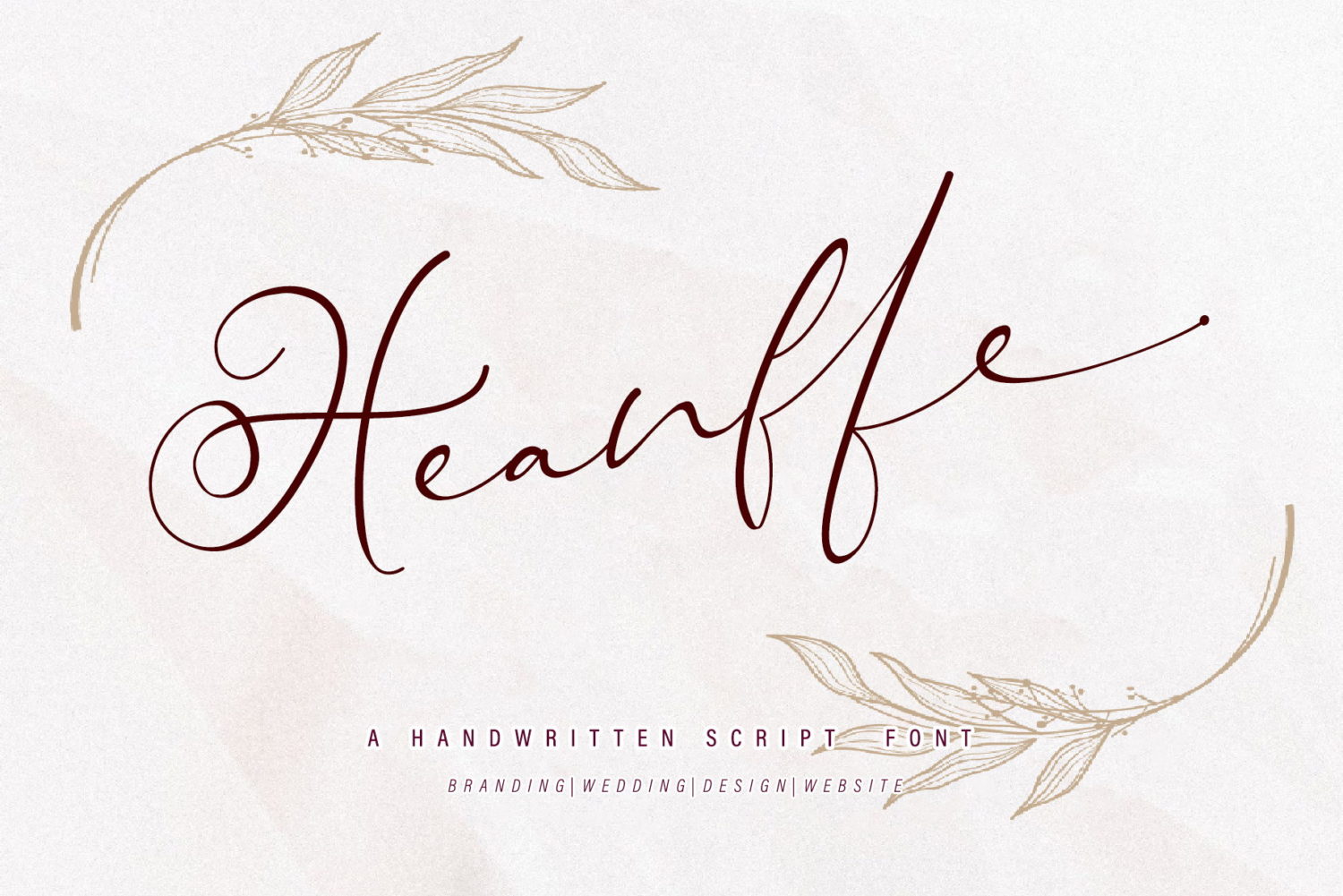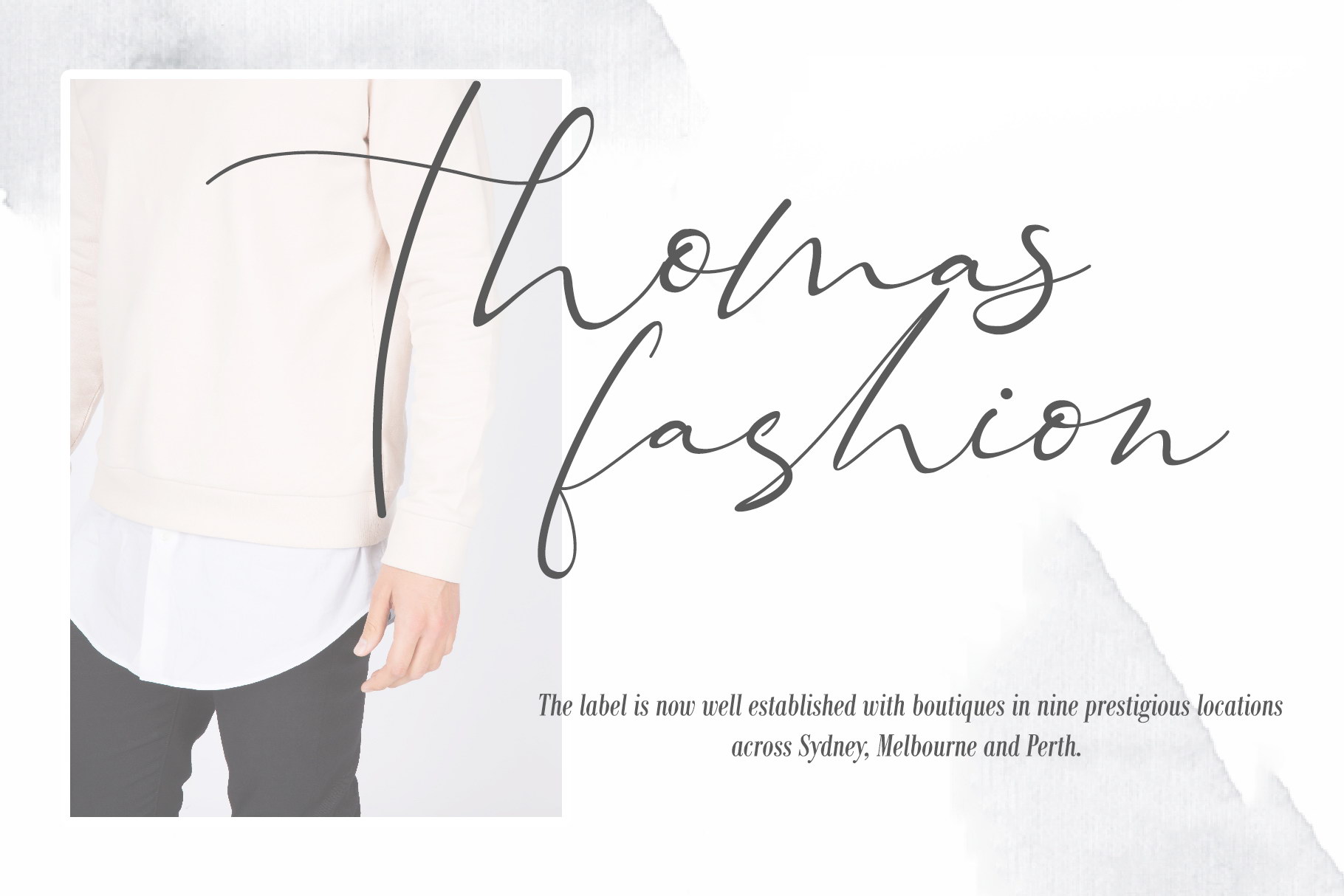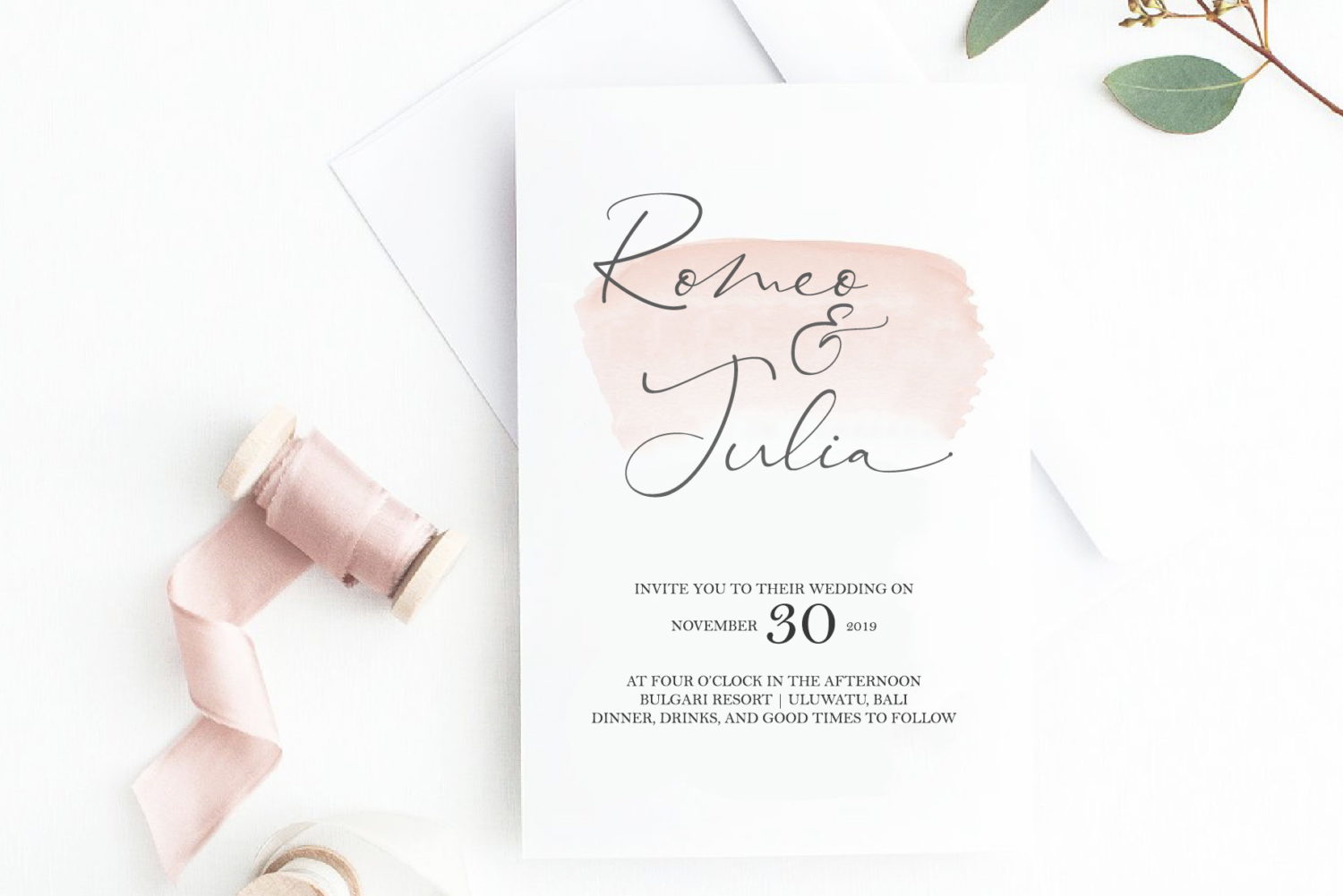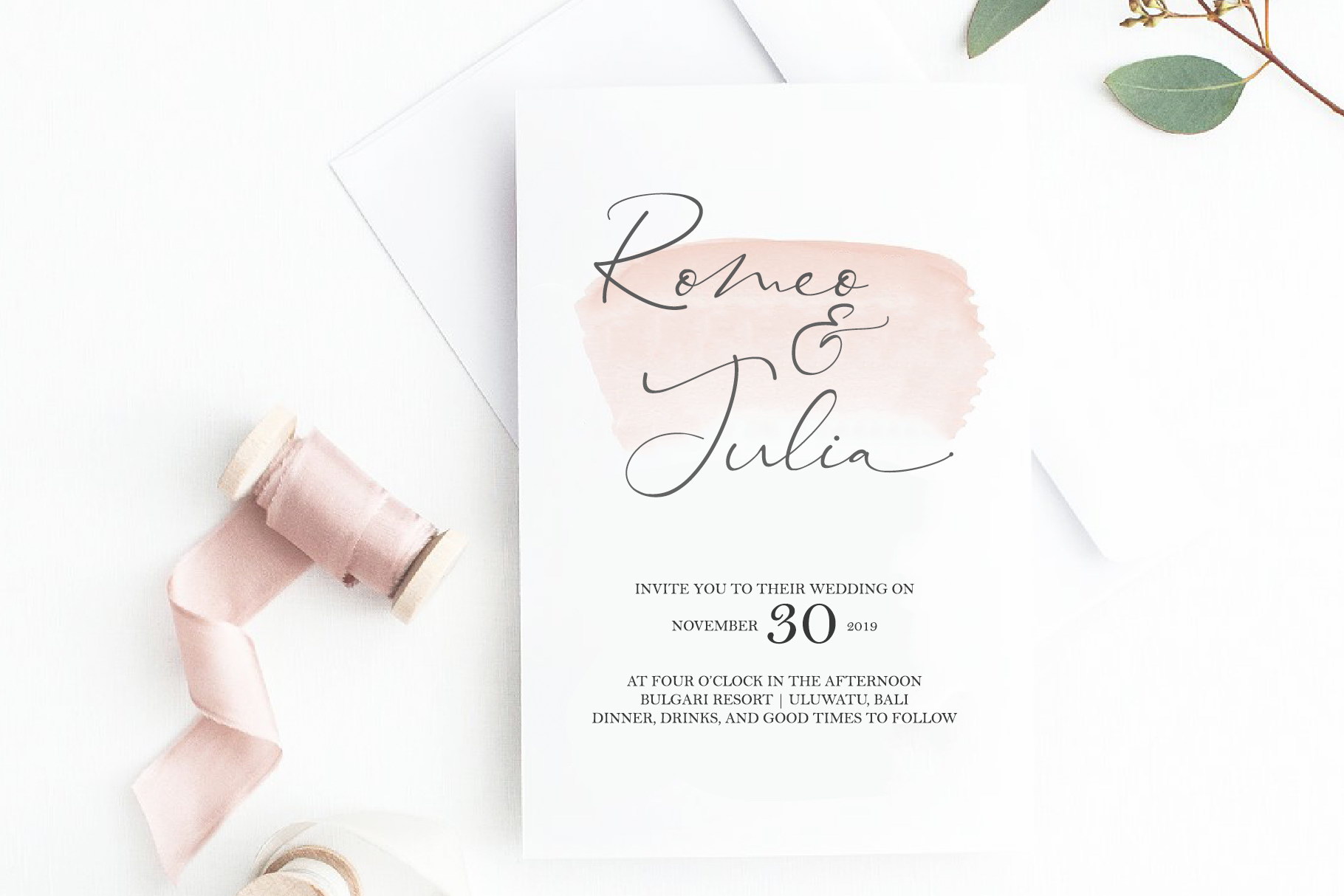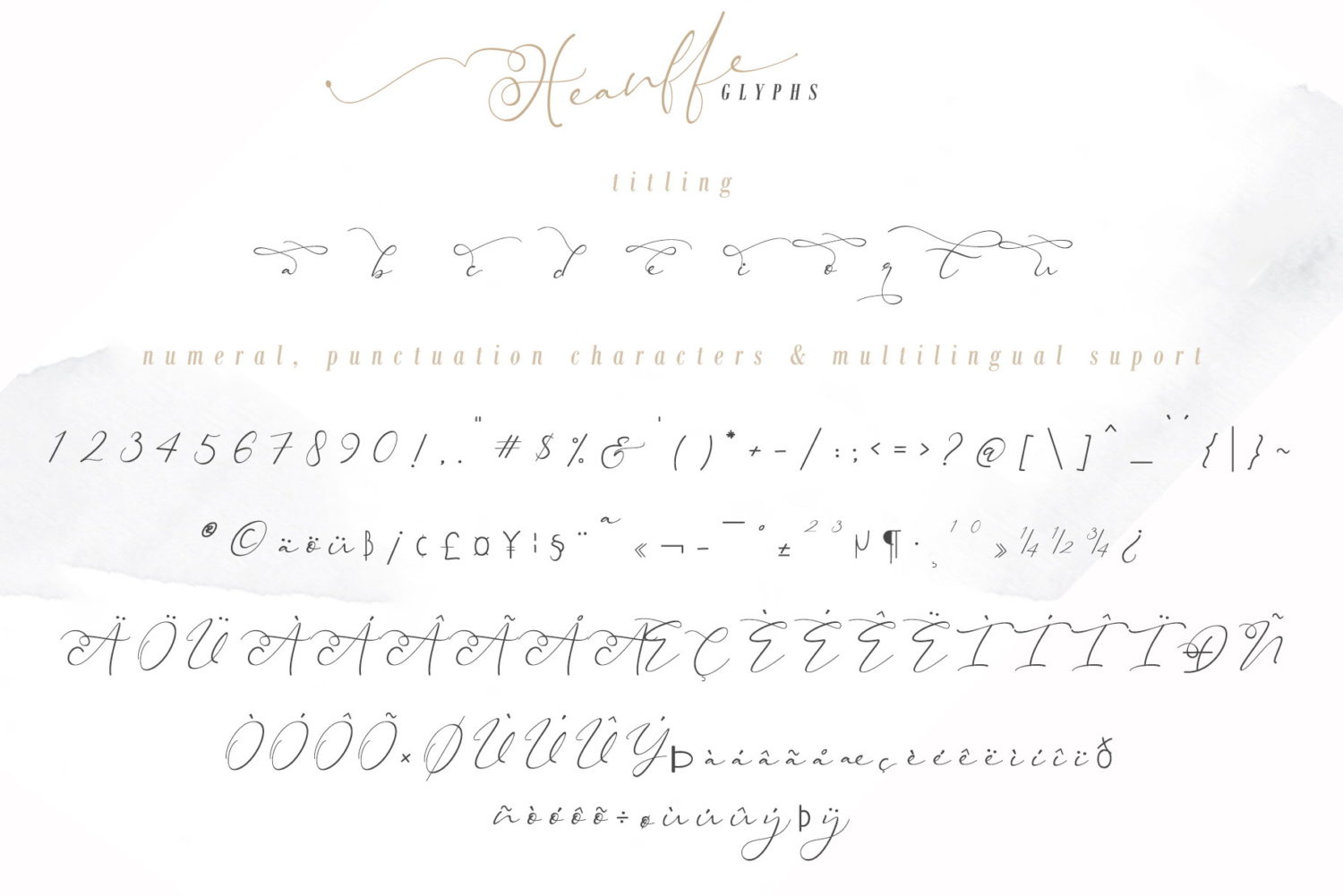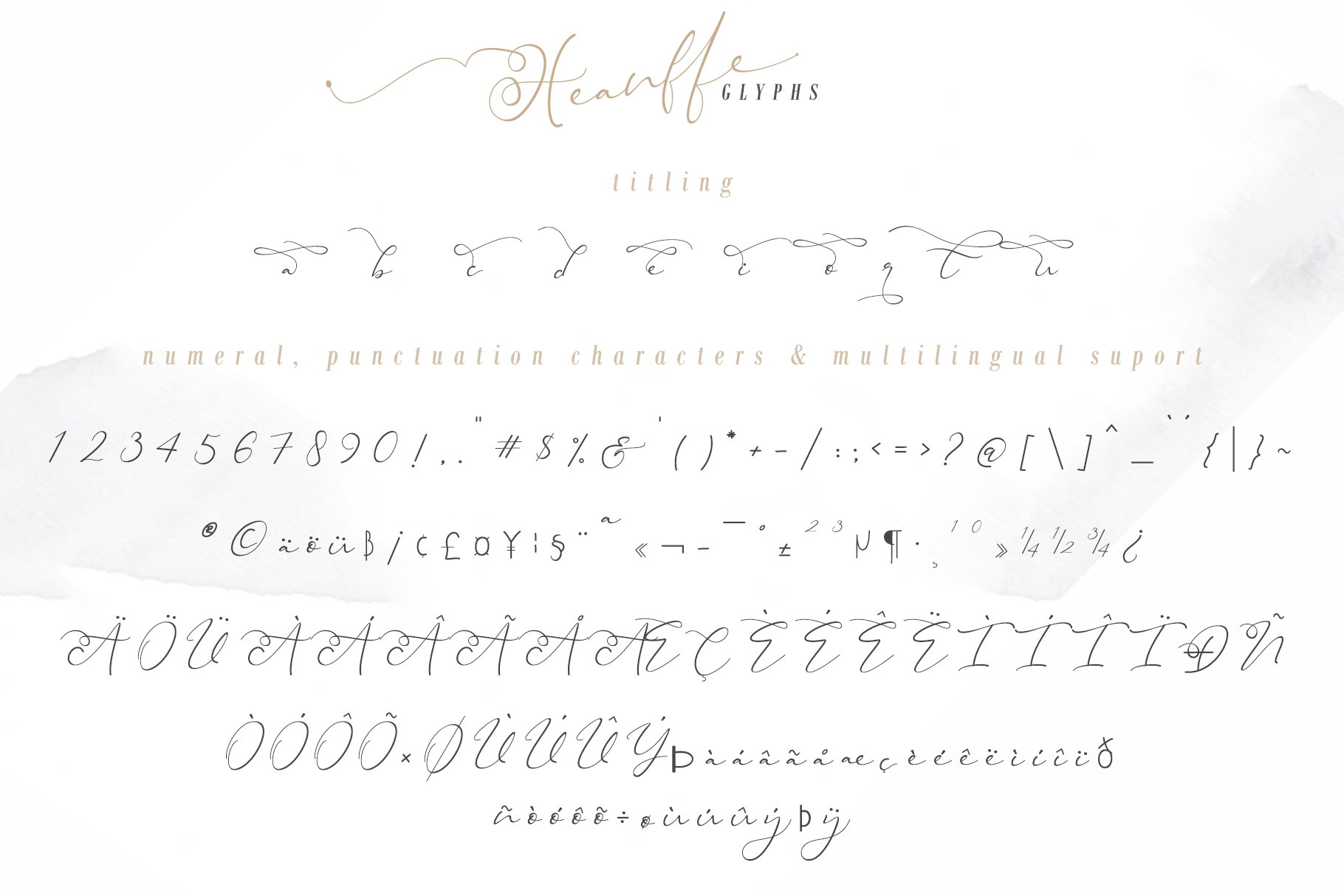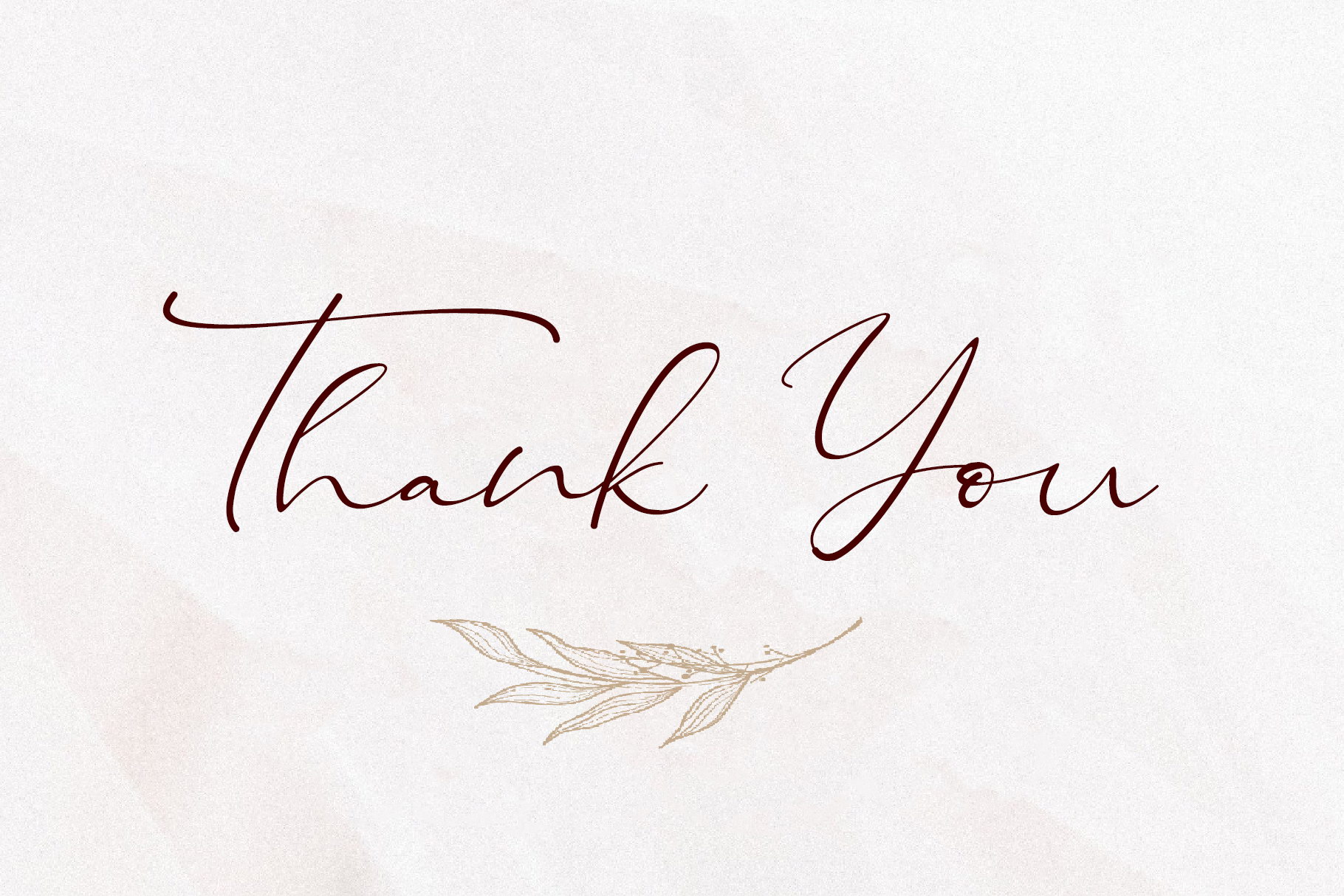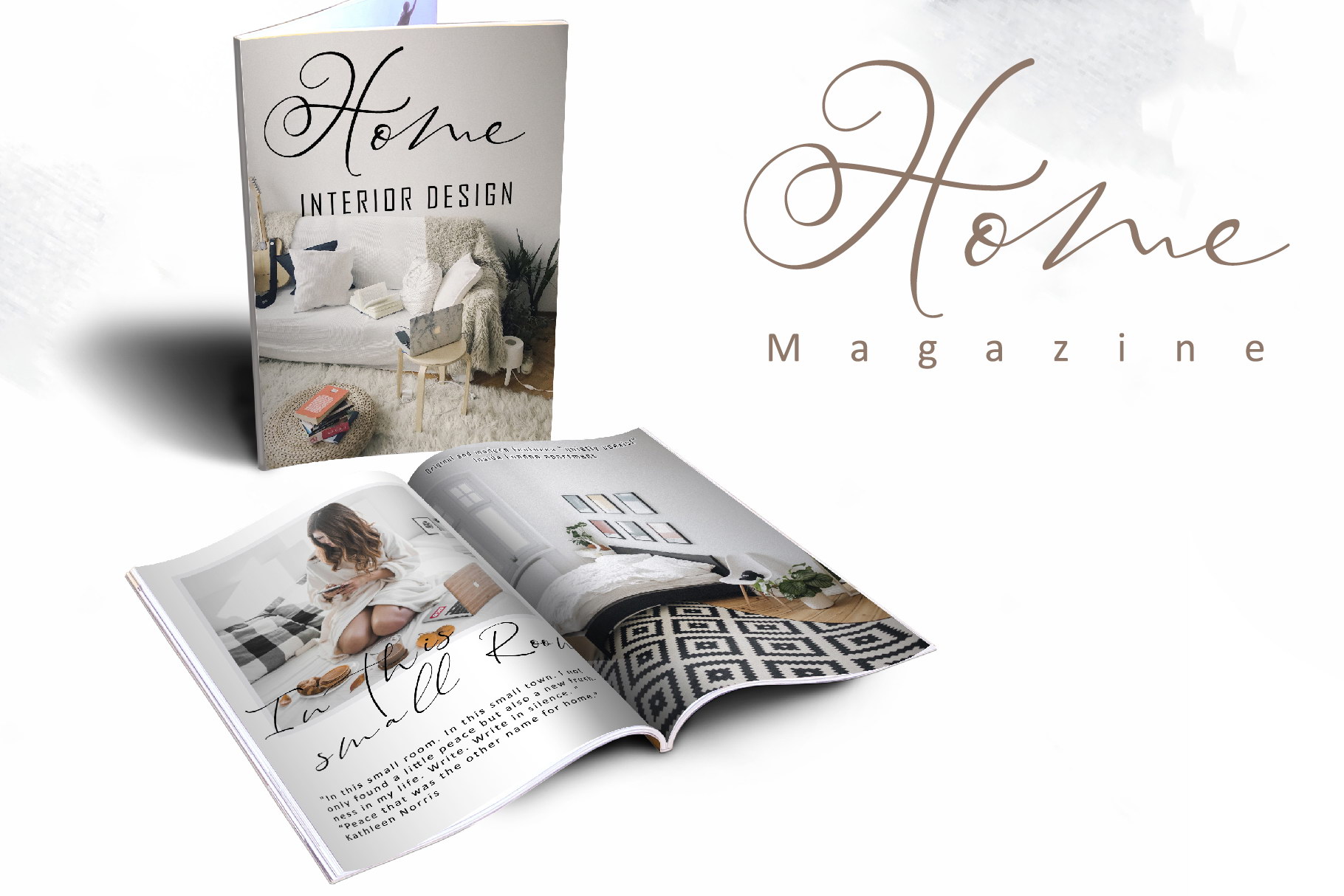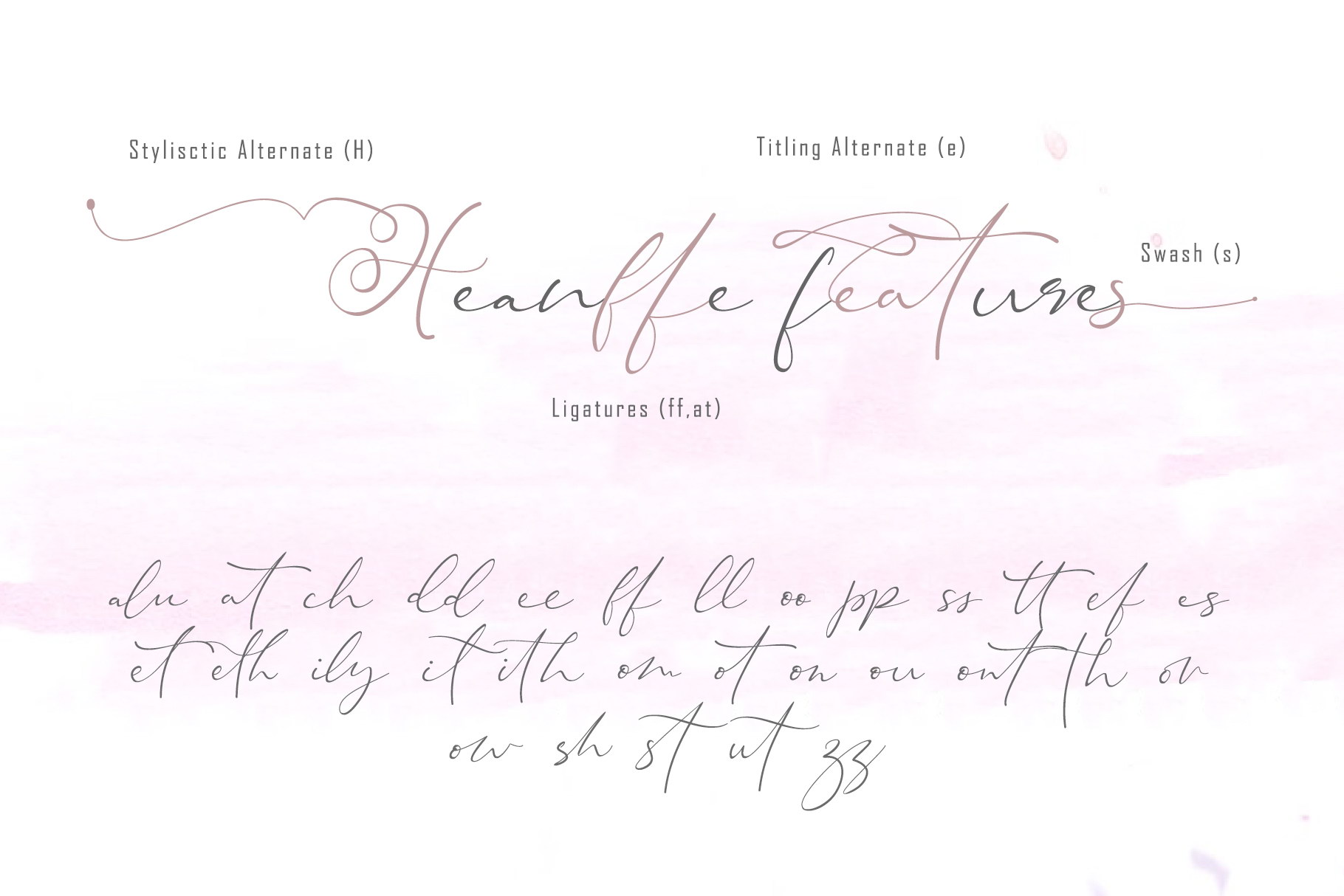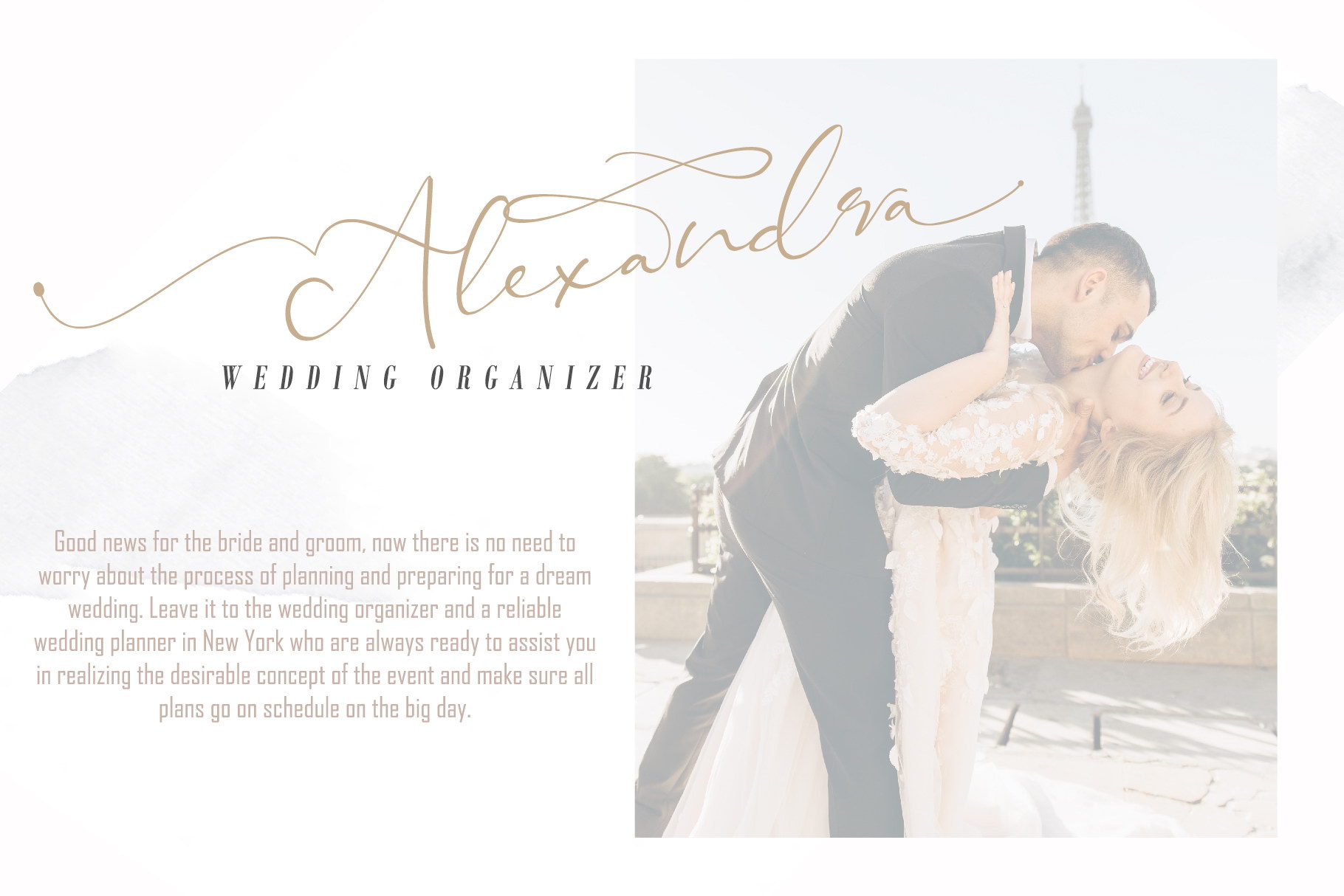
Heanffe Font
Heanffe is a one-of-a-kind handwritten font with a beautiful feel. Just use your imagination, your project will become more alive and look more elegant than ever.
You can make a greeting, a package design, a brand identity, craft design, any DIY project, book title, wedding invitation, identity card, packaging, website or any purpose to make your art/design project look pretty and trendy.